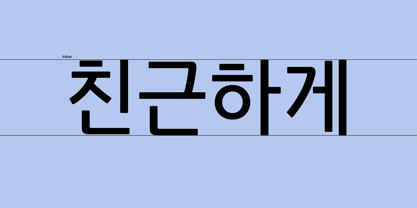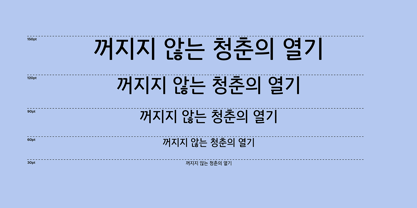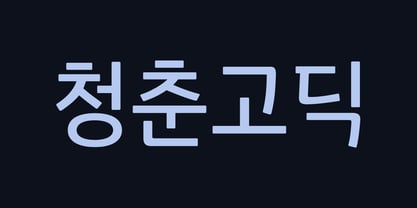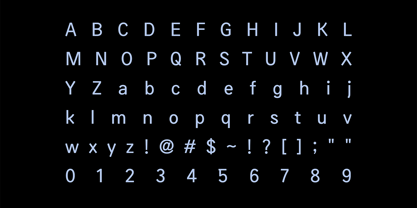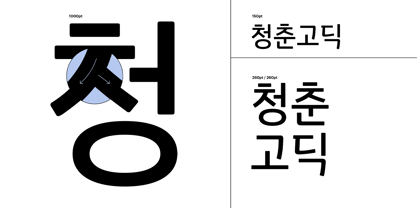
Yoon Chungchoon
by Yoon Design
The Yoon Chungchoon Font Family was designed by Yoon Design Team and published by Yoon Design. Yoon Chungchoon contains 1 styles. More about this family
Yoon Chungchoon is an energetic sans serif inspired by handwriting. Unlike rigid geometric fonts, its softly rounded stroke endings create a warm, approachable personality. Capture the vibrant spirit of youth and let your message travel farther.
Family size: A single weight.
Glyph count: 11,172 hangeul glyphs, 95 Latin glyphs, and 985 KS symbols.
Language support: Multi-lingual support for English, Korean, and more.
Designers: Yoon Design Team
Foundry: Yoon Design